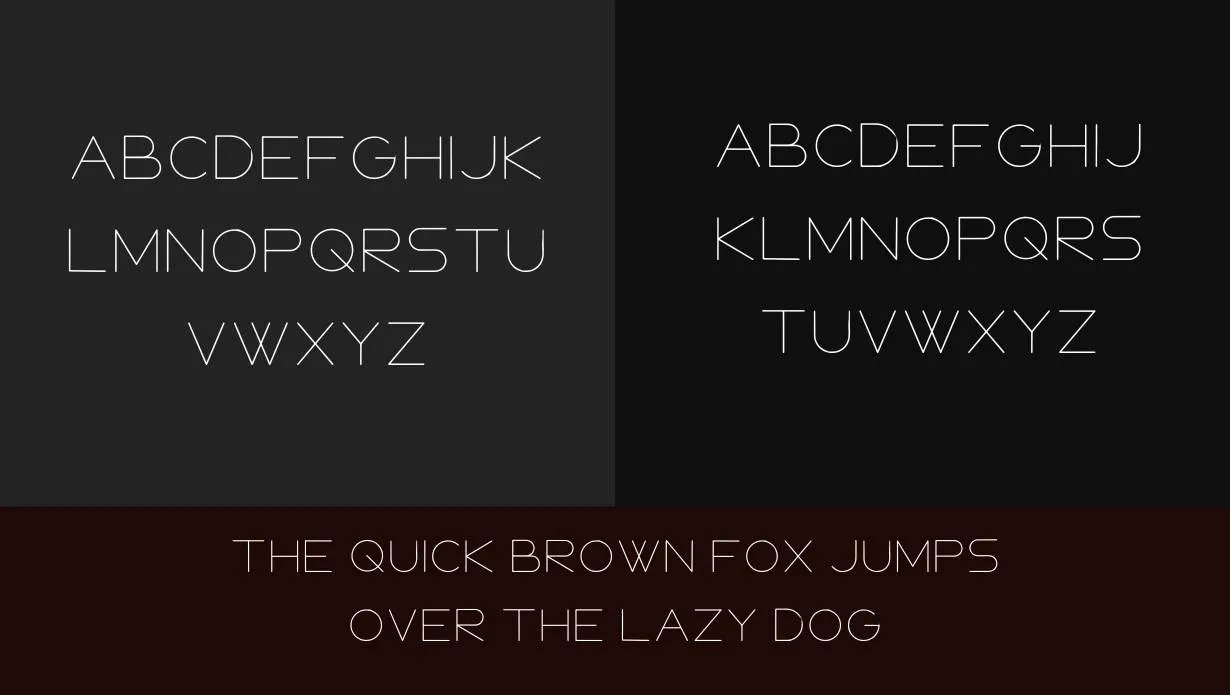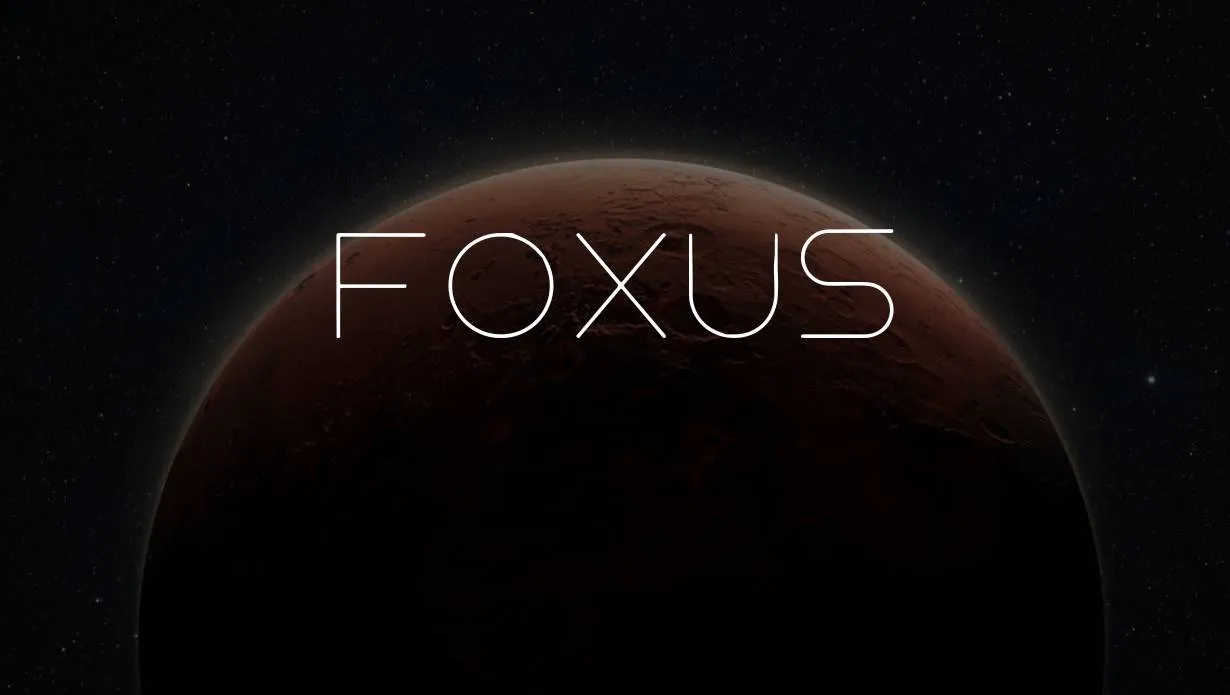
About Foxus Font
Foxus is a modern, minimalist sans‑serif typeface with clean, geometric letterforms that convey a contemporary and versatile aesthetic. Its symmetrical construction and upright design give it a balanced and professional appearance, suitable for headlines, logos, posters, and UI projects. The font’s simplicity and clarity allow it to work well across both digital and print applications, including websites and branding. Available in a range of weights, Foxus adapts to diverse creative needs while maintaining visual cohesion. Its futuristic yet understated style makes it a flexible choice for designers seeking modern typography.